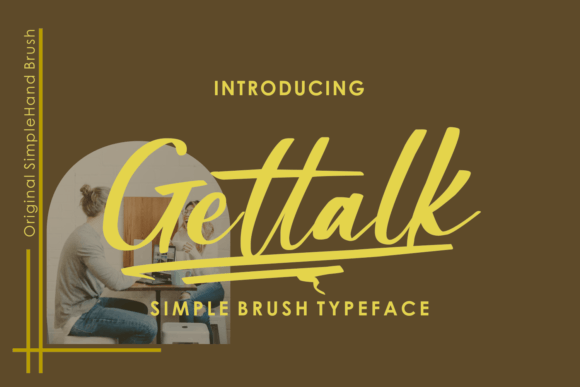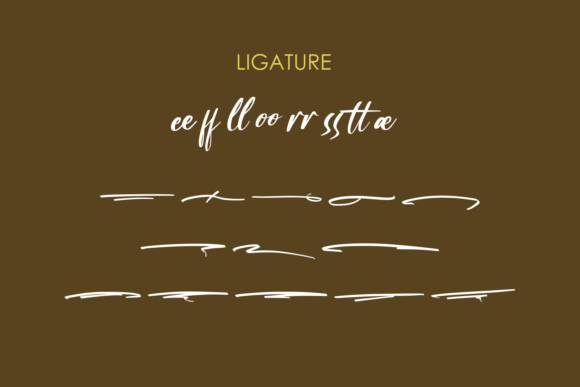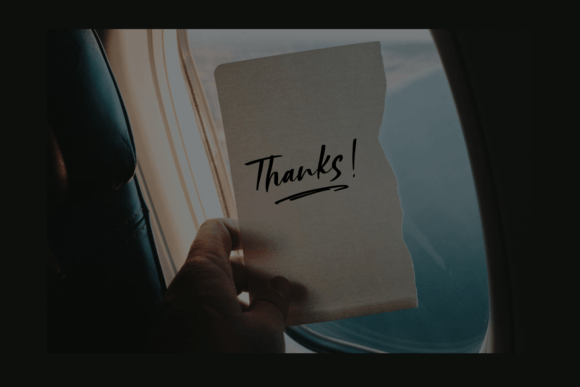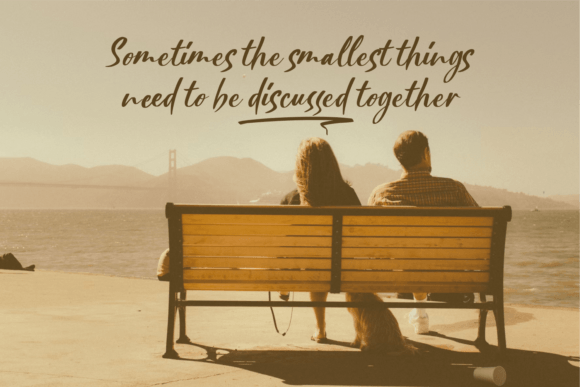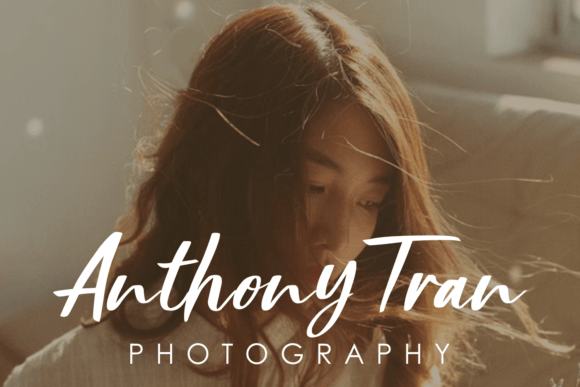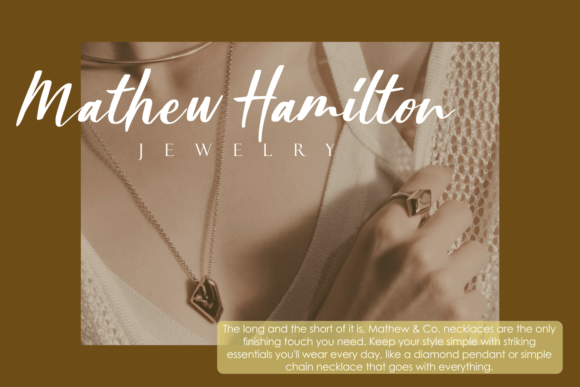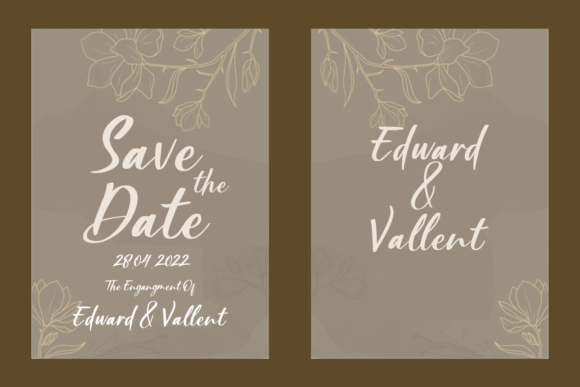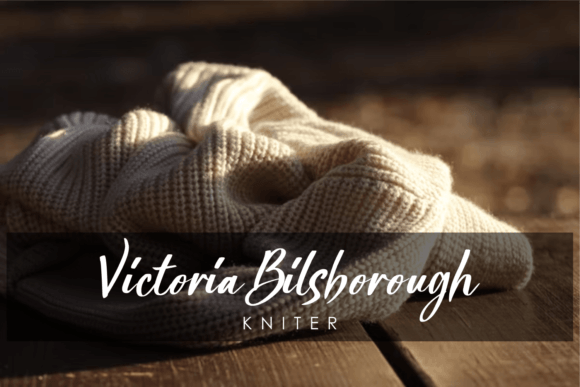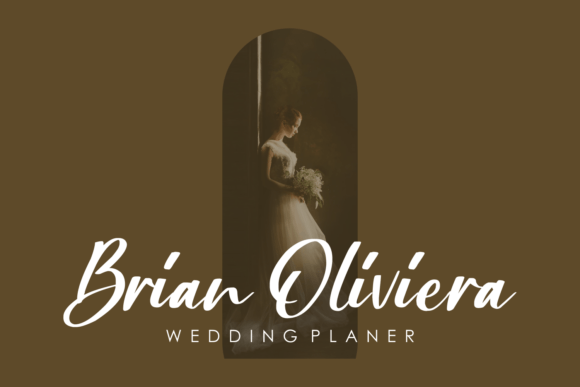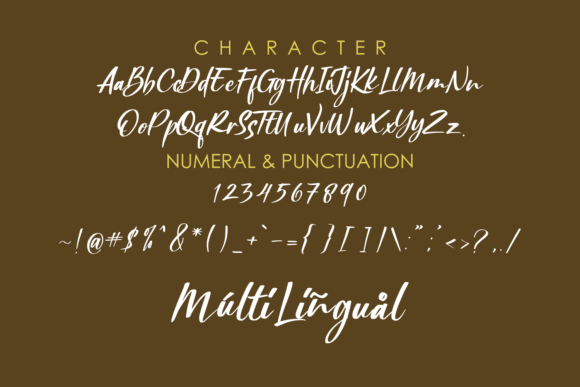
Gettalk Font
About Gettalk Font
“Gettalk” is presented as a simple yet unique brush font, featuring standard ligatures and various lines that enhance its versatility for design purposes. Positioned as a font suitable for headlines, social media, invitations, business cards, photography, quotes, and more, “Gettalk” is described as an excellent choice due to its ease of pairing with other fonts or its ability to stand alone.
The simplicity of “Gettalk” makes it an accessible and versatile choice for a range of design applications. Its brush font style brings a touch of informality and creativity, making it suitable for various contexts where a casual yet distinctive look is desired.
The inclusion of standard ligatures is a practical feature, contributing to the overall fluidity and natural appearance of the font. Ligatures can enhance the connections between certain letter pairs, creating a more cohesive and visually pleasing design.
The varied lines available in “Gettalk” add an extra layer of customization, allowing designers to experiment with different styles within the same font family. This versatility makes it well-suited for creating dynamic and engaging designs.
The font’s adaptability for pairing with other fonts or standing alone suggests its potential as a complementary element in diverse design projects. Whether you’re creating social media graphics, invitations, or business cards, “Gettalk” aims to offer a balance of simplicity and uniqueness.
In summary, “Gettalk” is positioned as a simple yet unique brush font with features that cater to diverse design needs. Its versatility, ligatures, and varied lines make it suitable for a wide range of applications, allowing designers to experiment and create standout designs for various purposes.